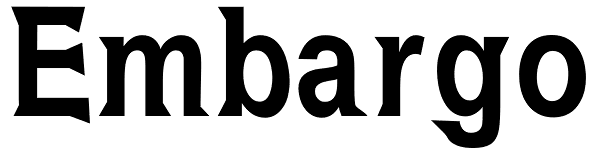
Embargo
The Embargo font family is a set of stylish, modern typefaces. All typefaces are based on an italic sans-serif typeface that has been altered with angled serifs or flares to give it an aerodynamic and unique feel. Embargo fonts are ideal for both...